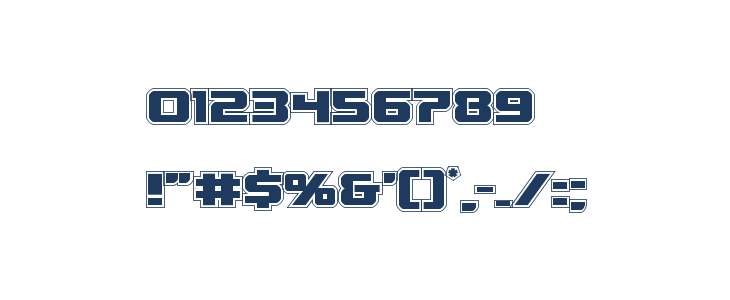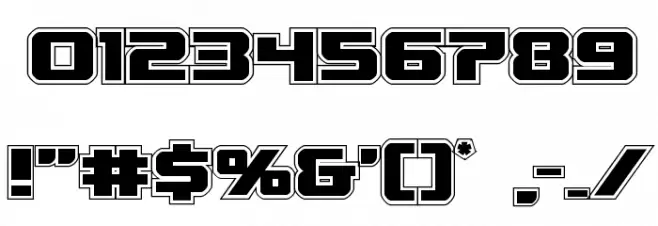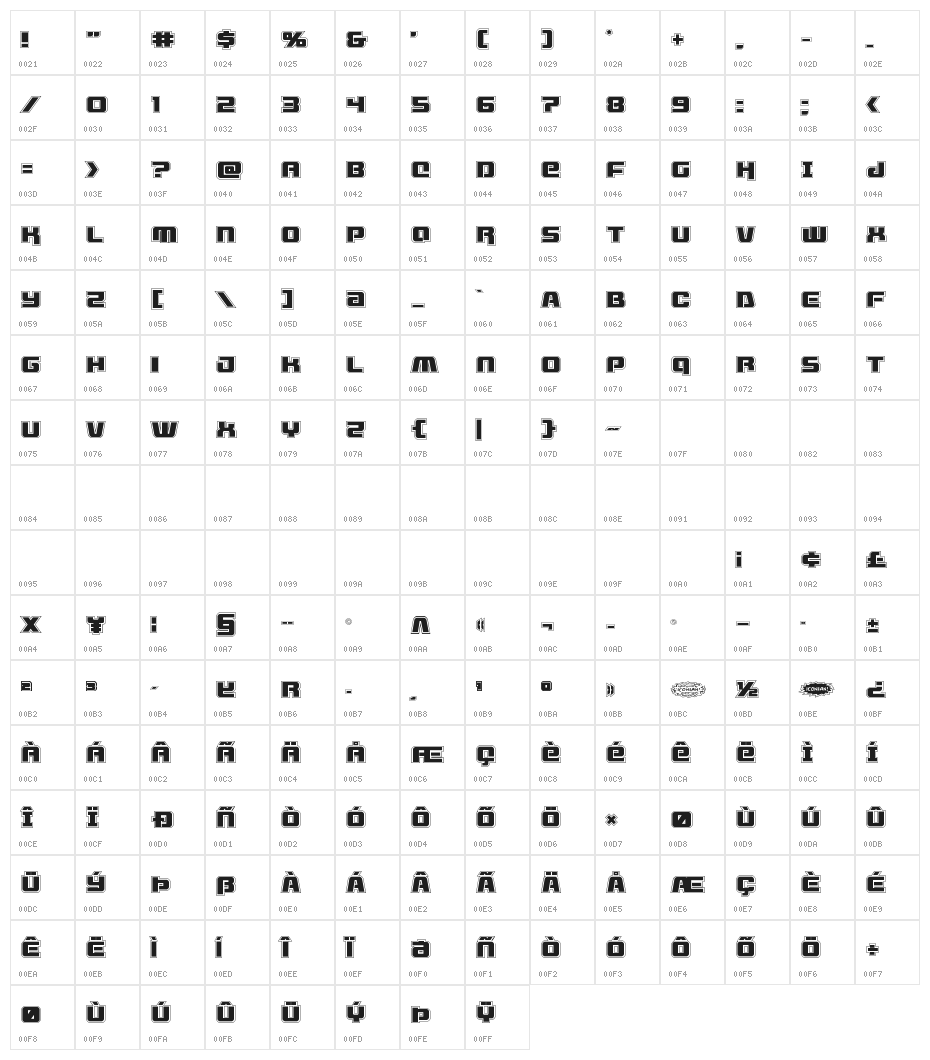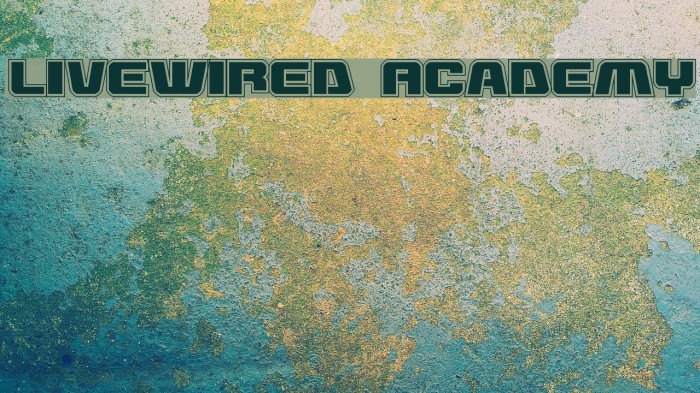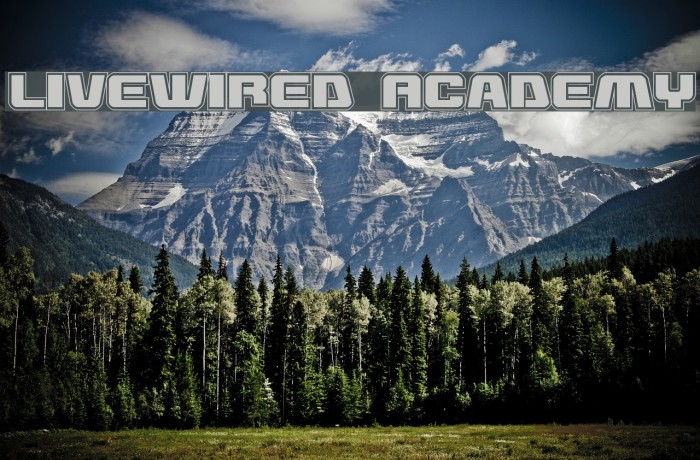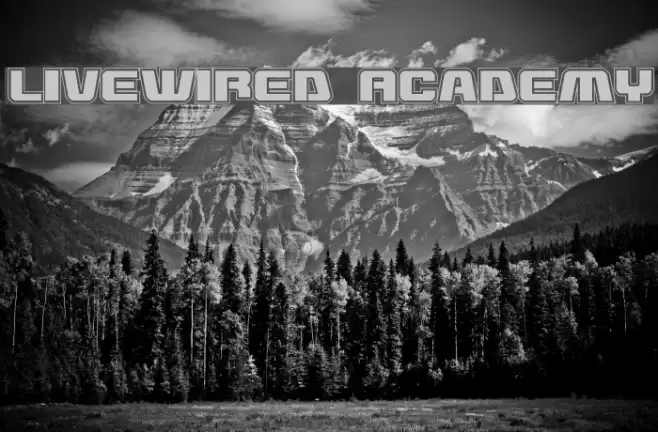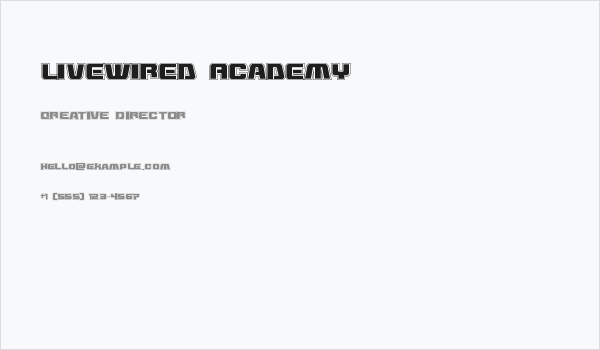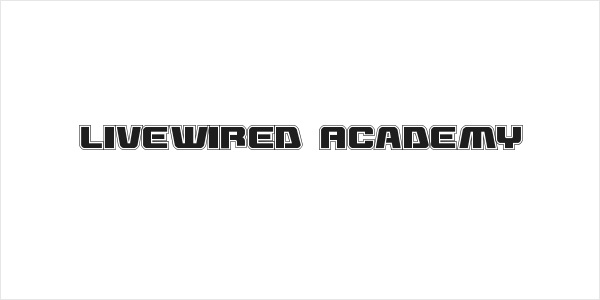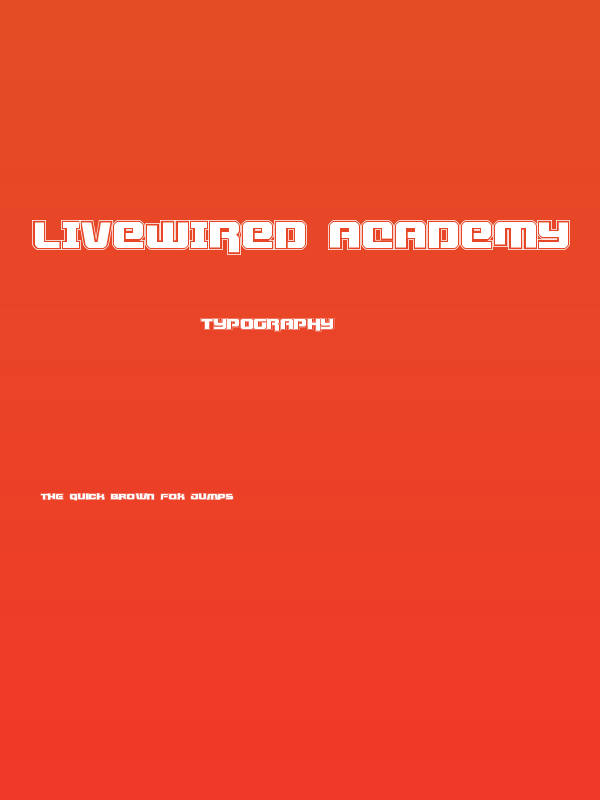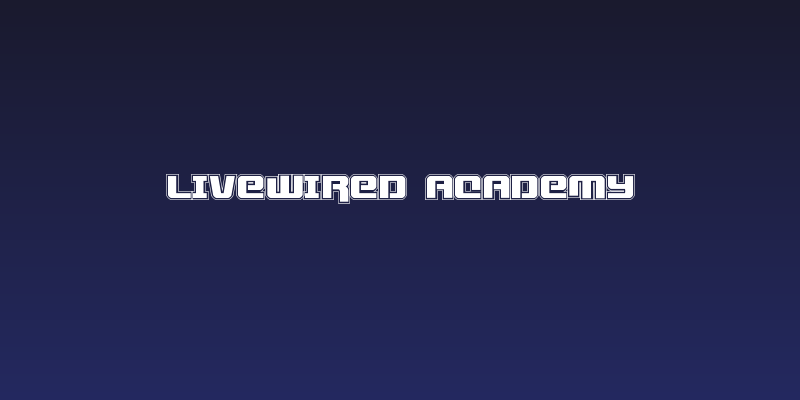
Livewired Academy Font
Livewired Academy Description
This font features a bold, geometric design with a distinct outline that gives each character a three-dimensional effect. The uppercase letters are uniform in height, with a blocky, futuristic appearance. The lowercase letters maintain the same style, ensuring consistency across the typeface. Numbers and special characters are designed to match the bold, outlined aesthetic, making them stand out prominently. The overall look is modern and eye-catching, suitable for projects that require a strong visual impact.
| Proposed Projects | Ideal for branding, posters, video game graphics, and any project needing a futuristic or tech-inspired look. |